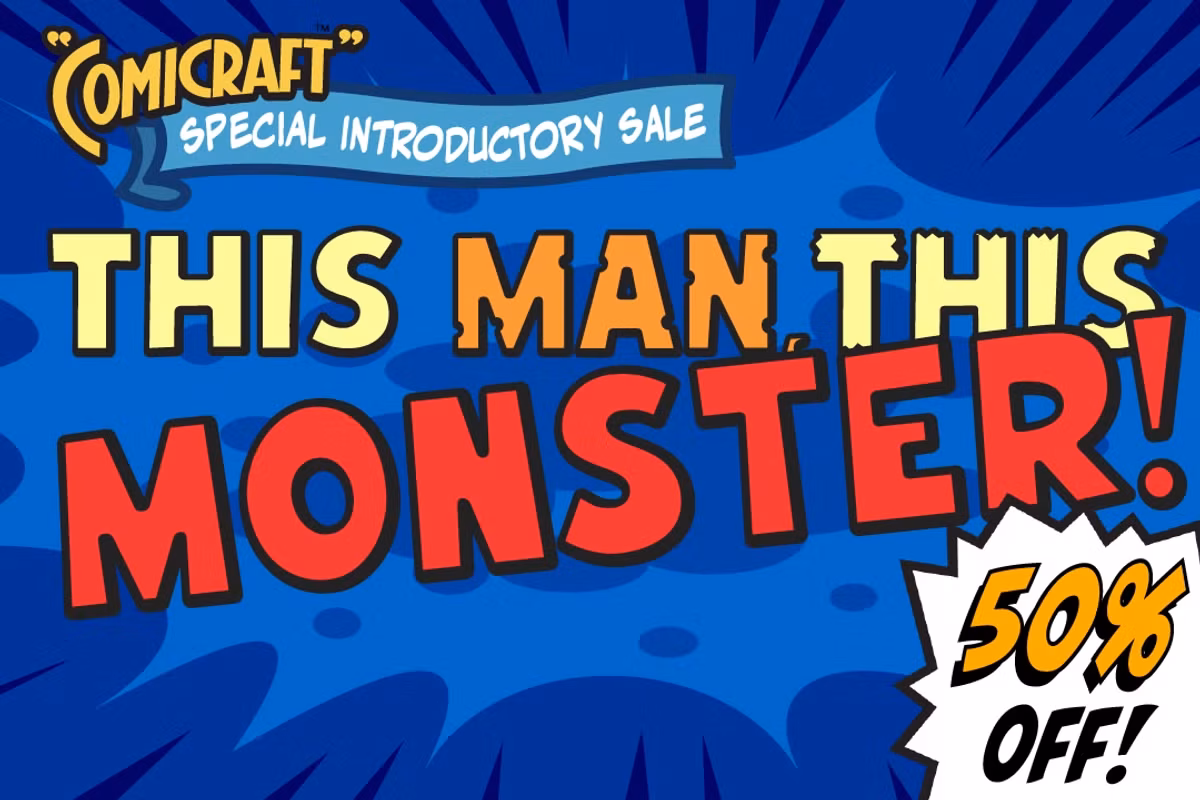
This Man This Monster Font Free Download is a bold and unique display typeface designed to make a statement. With its strong, chunky letterforms and distinctive character, This Man This Monster is perfect for projects that require an impactful, attention-grabbing font.
Ideal for posters, logos, branding, headlines, and creative designs that need a touch of personality and strength, this font adds a dramatic, edgy feel to any design. Its playful and powerful design ensures that it stands out in both print and digital formats.